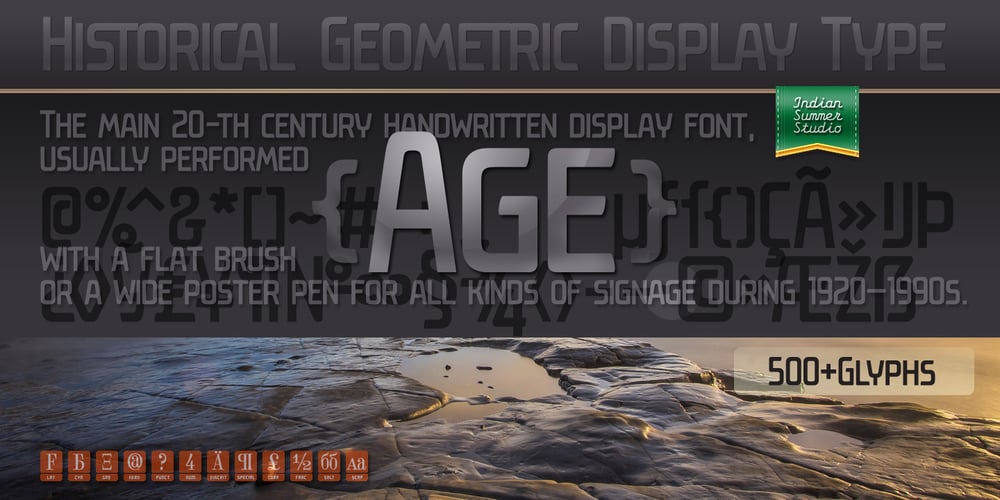
Age Font Family was designed by Alexander Bobrov and published by Indian Summer Studio. Age contains 1 styles and family package options. The main 20-th century handwritten display font in the USSR,usually performed with a flat brush or a wide poster penfor all kinds of signage during 1920-1990s.It had also many analogues in other countries, but never was that popular as in the Soviet Union, used everywhere.The softened modern humanistic version.